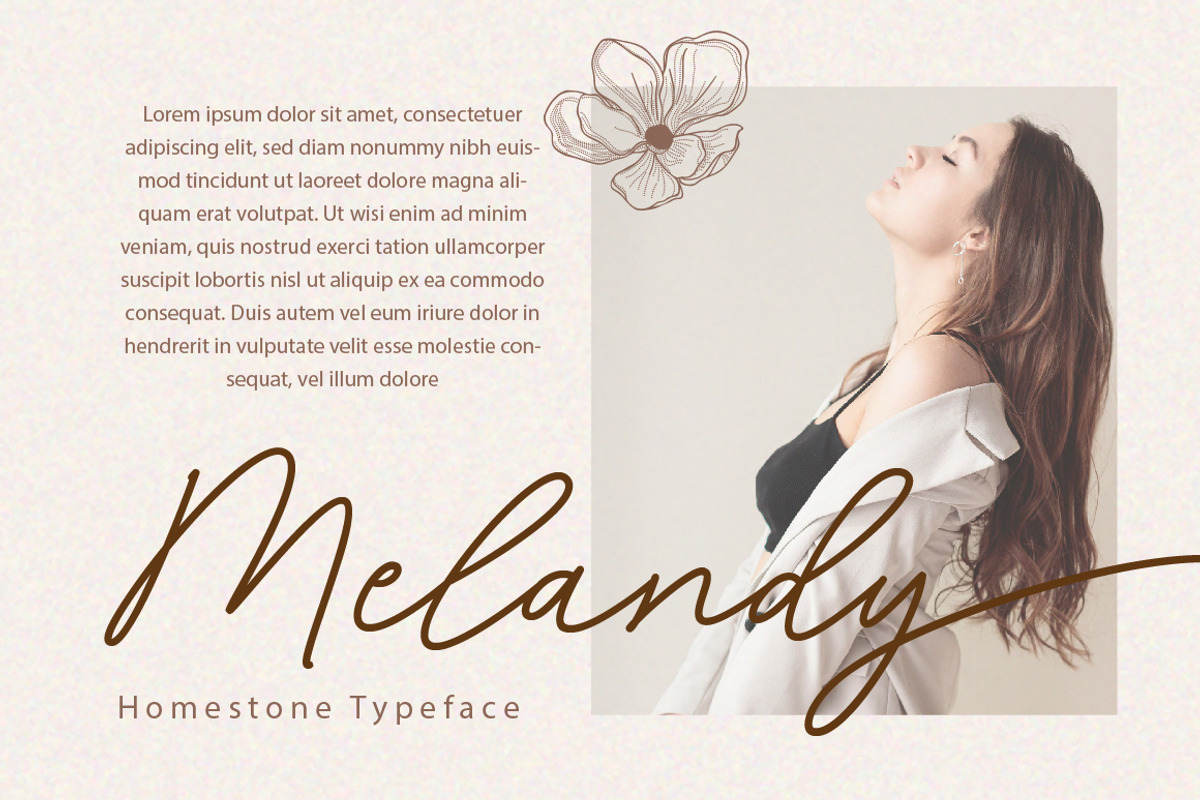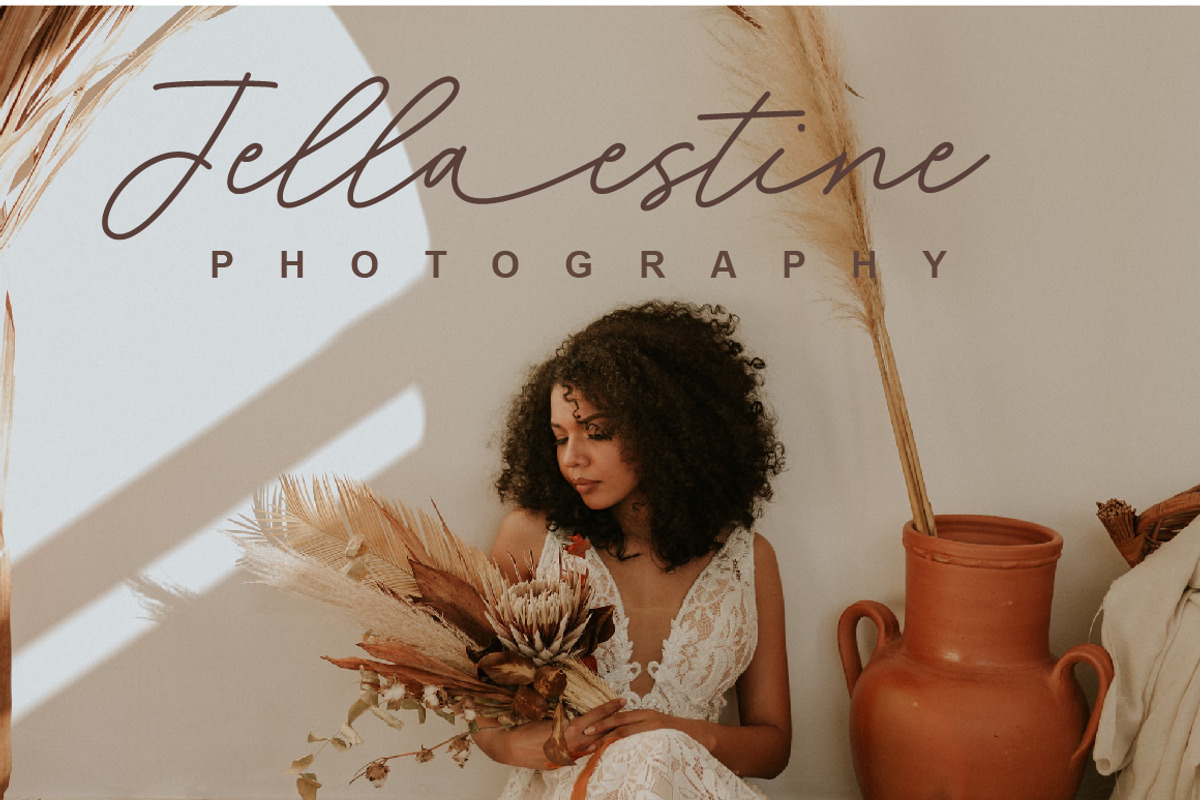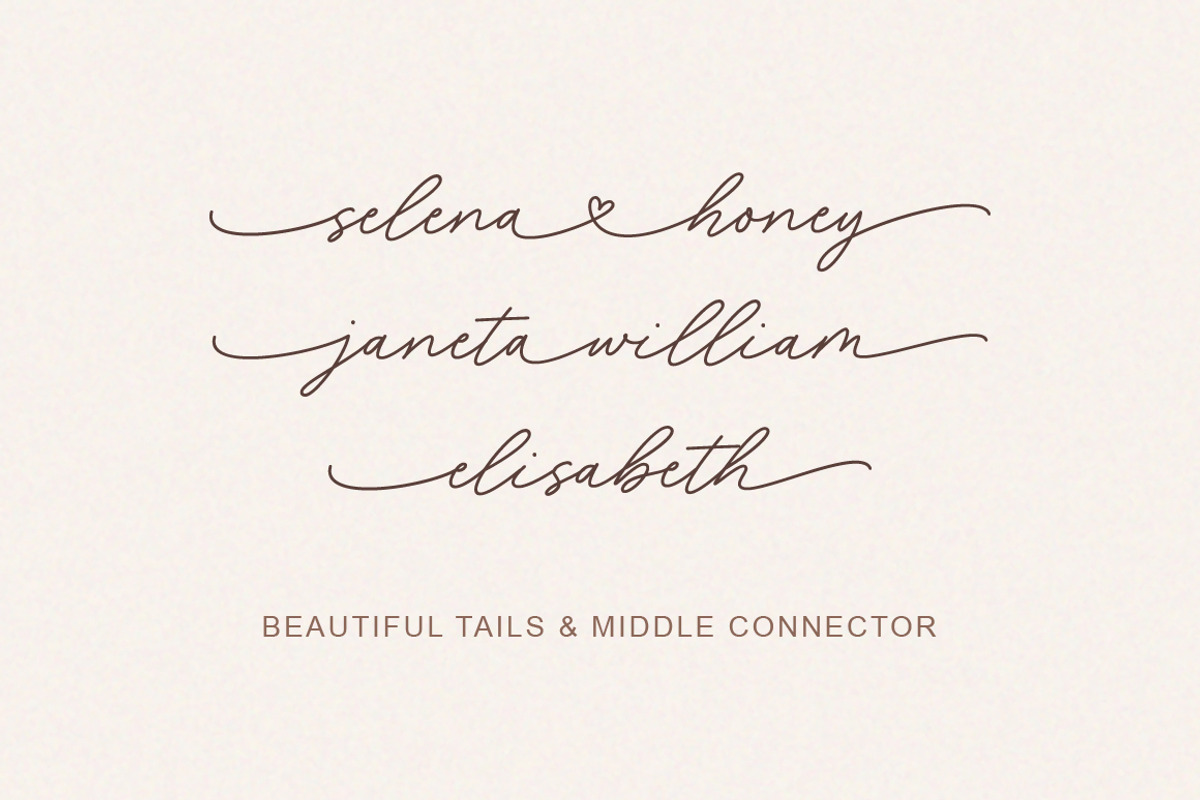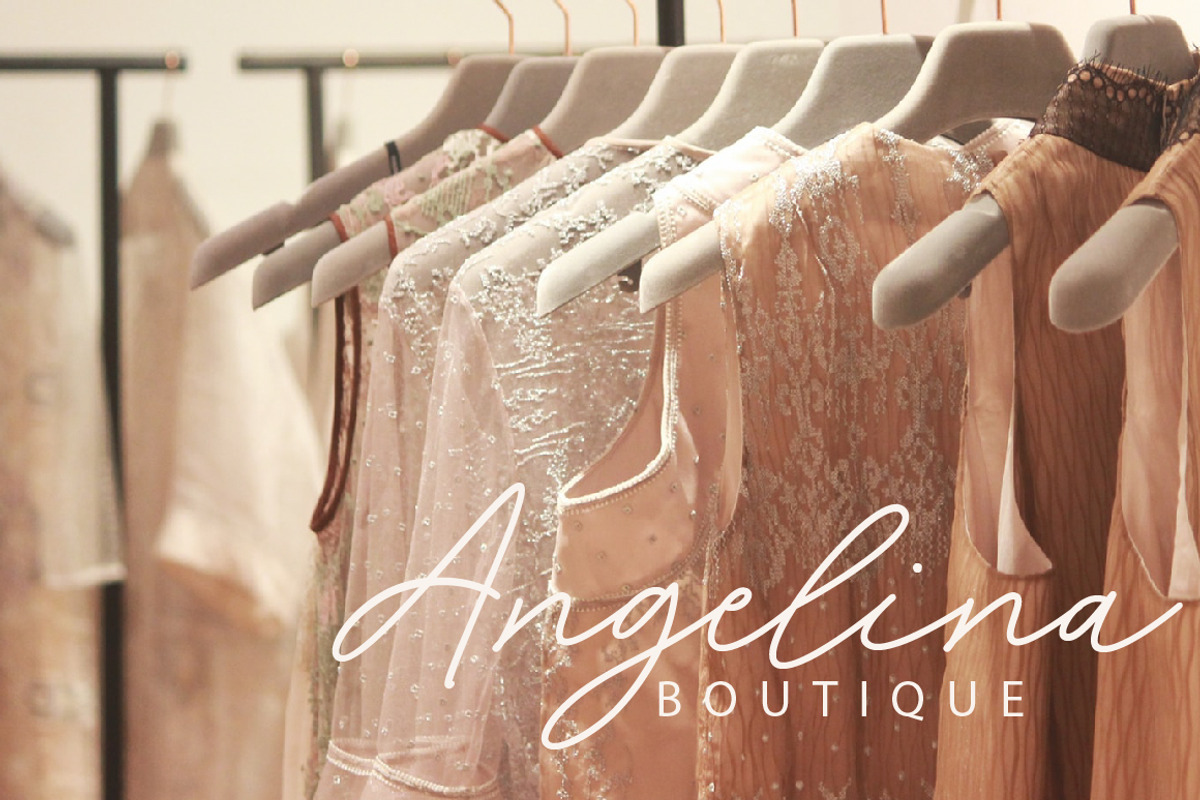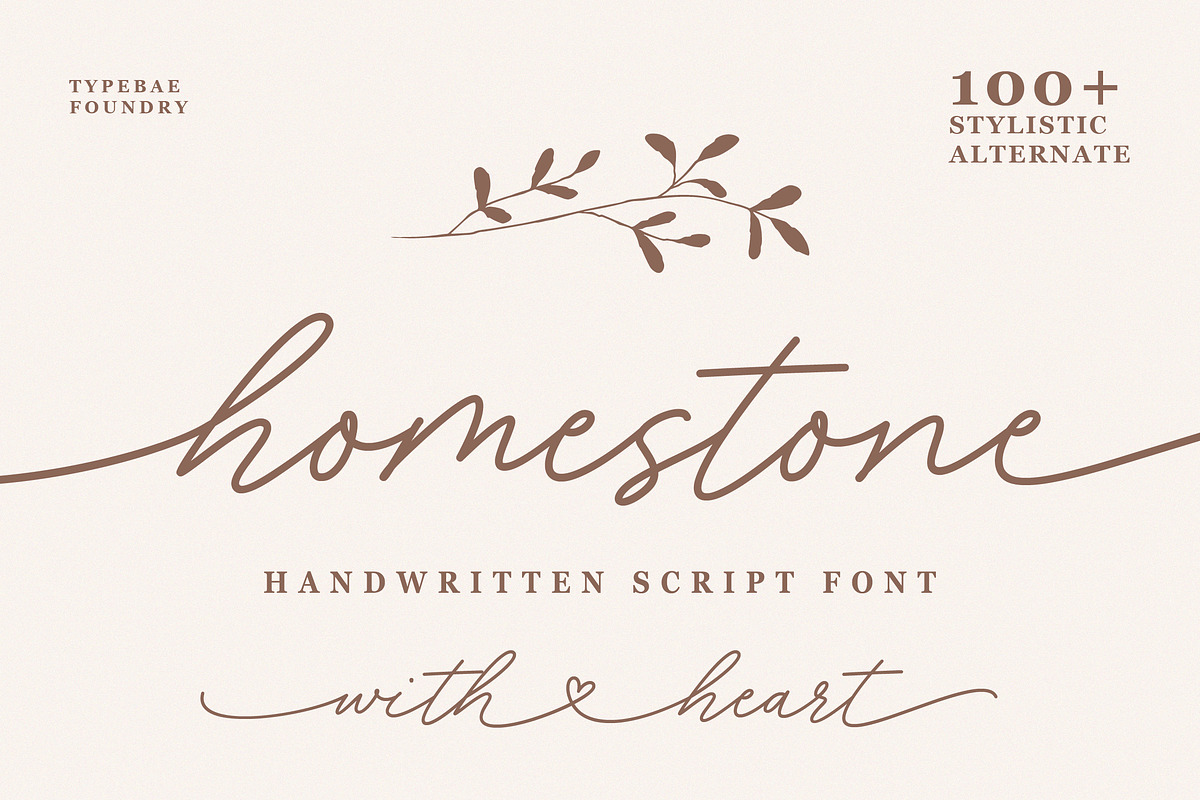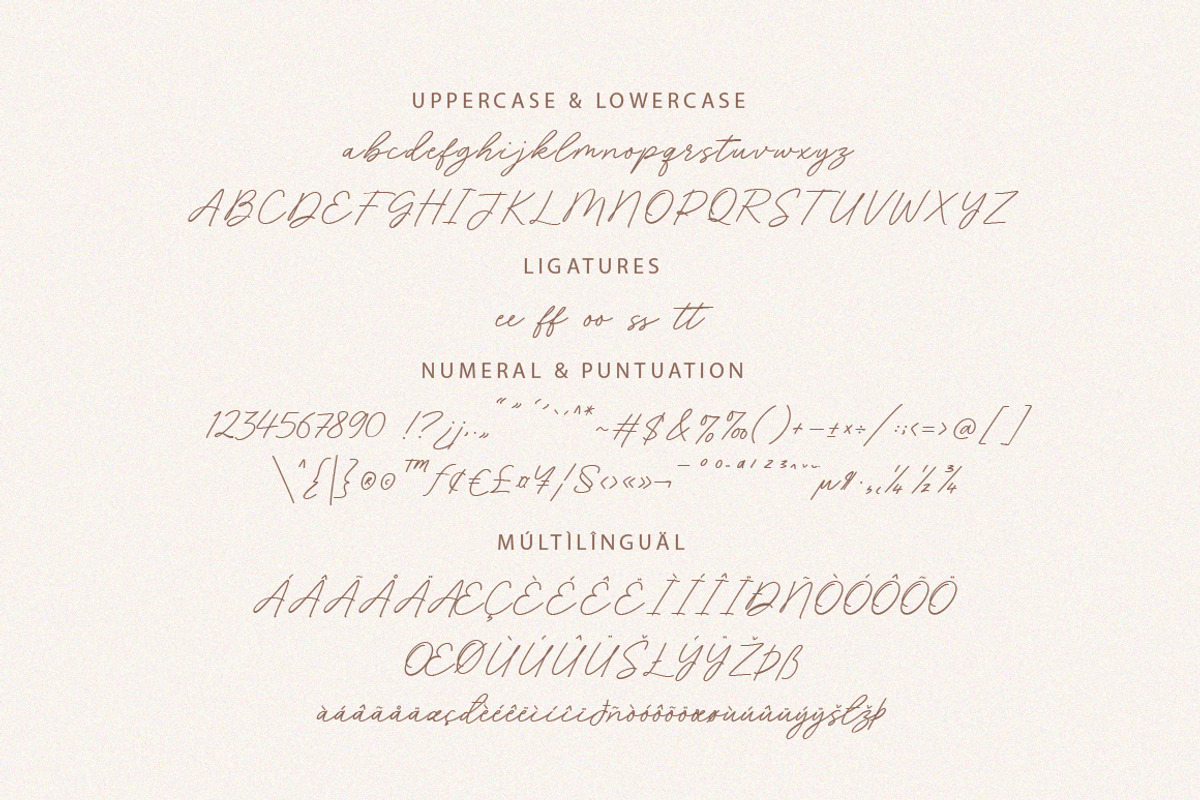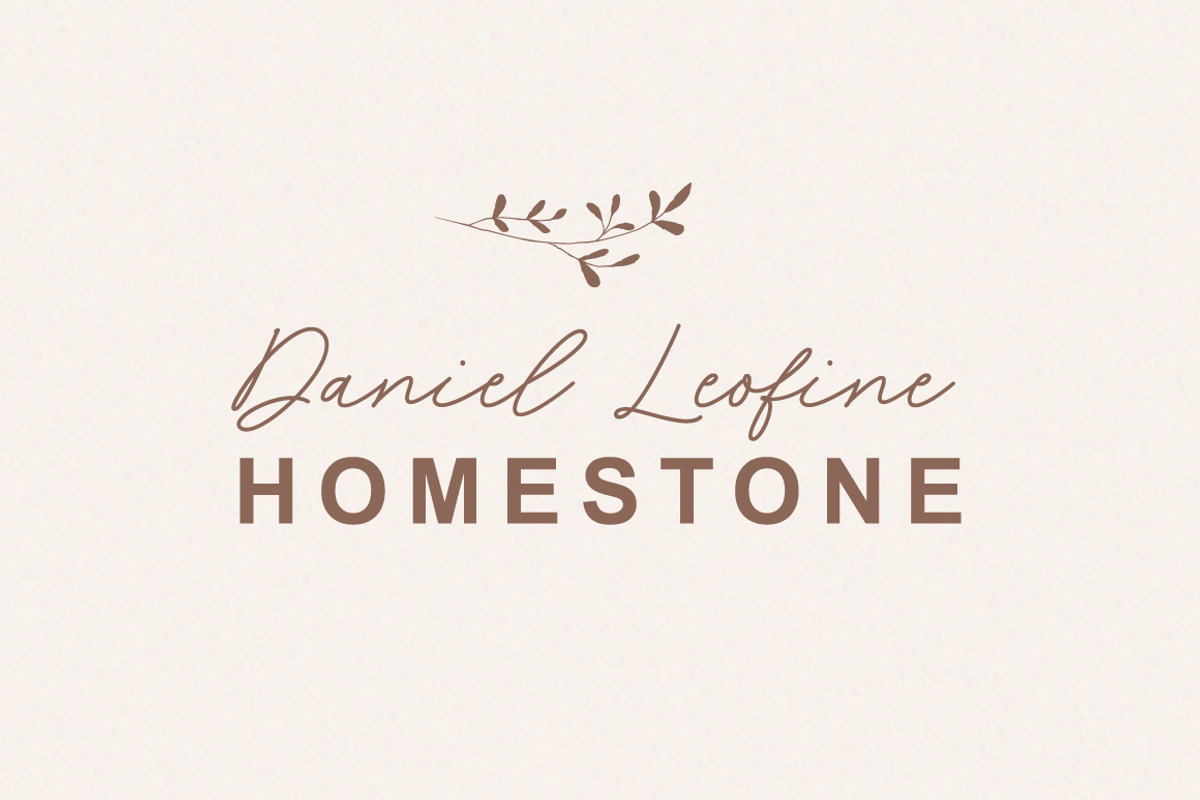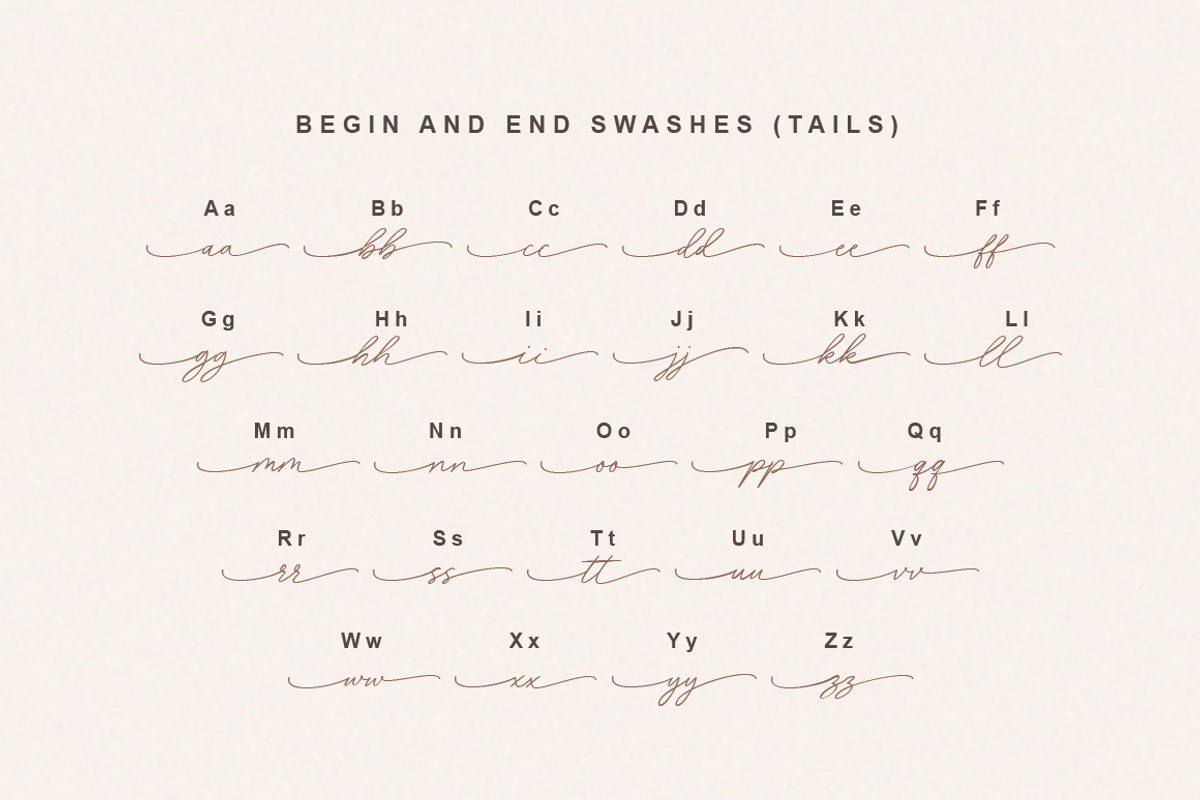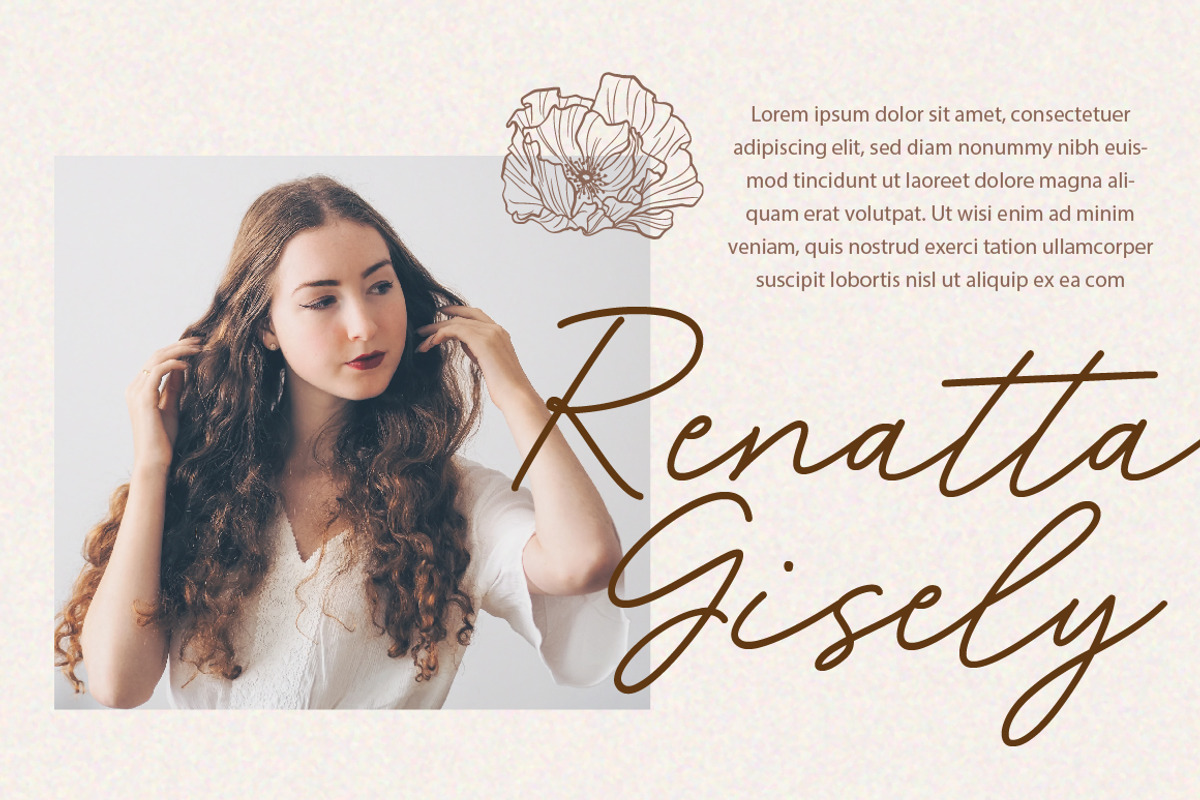
Homestone - Heart Swash Script Font
Homestone is an exquisite handwritten font, masterfully designed to become a true favorite. It maintains its classy calligraphic influences while feeling contemporary and fresh.
To use alternates, heart connector, beginning and ending swashes, you don't need to use software that supports opentype, because we have made it separately so it's very easy to use.
- Ligatures, Tails and Heart Swash